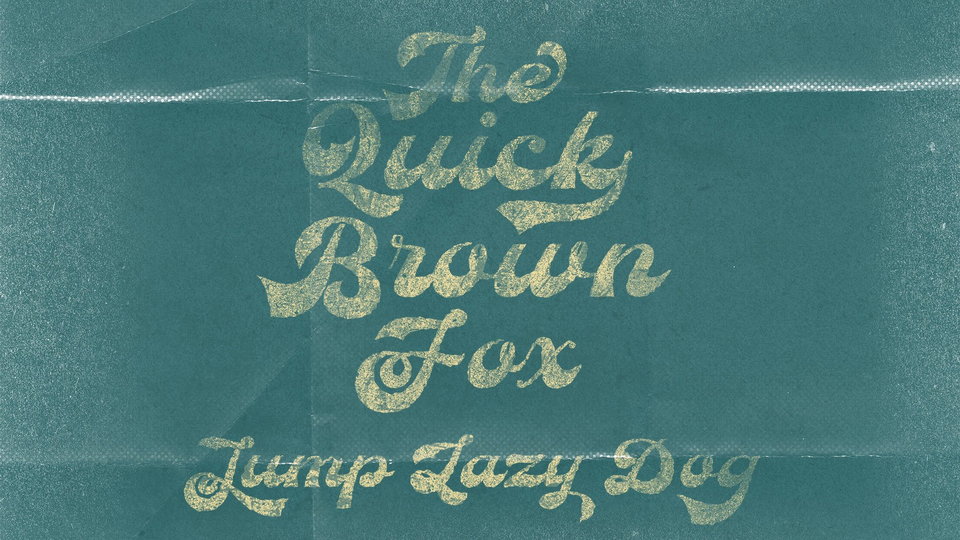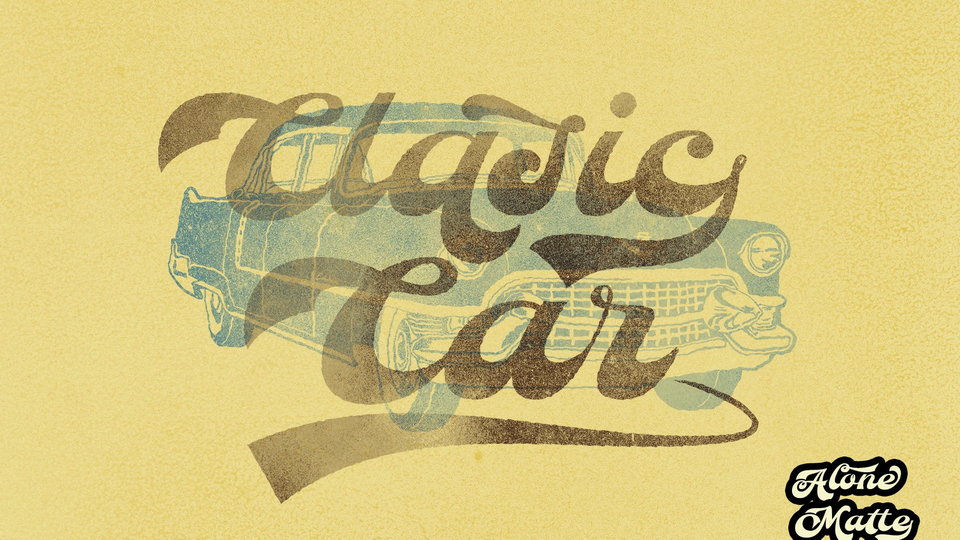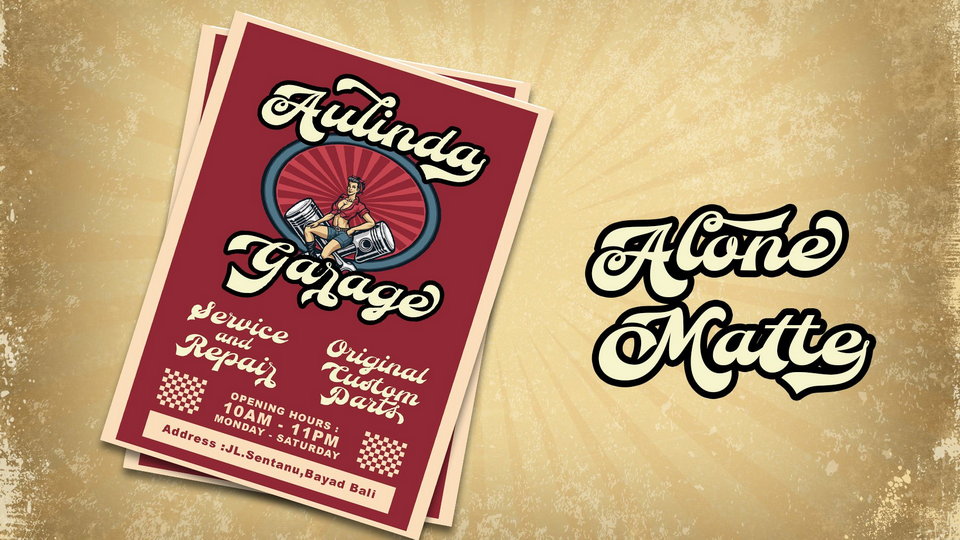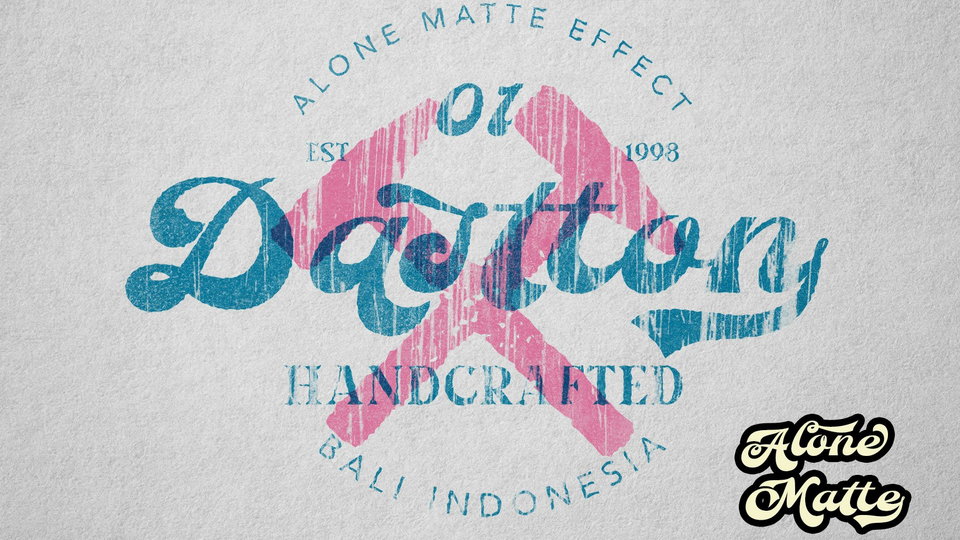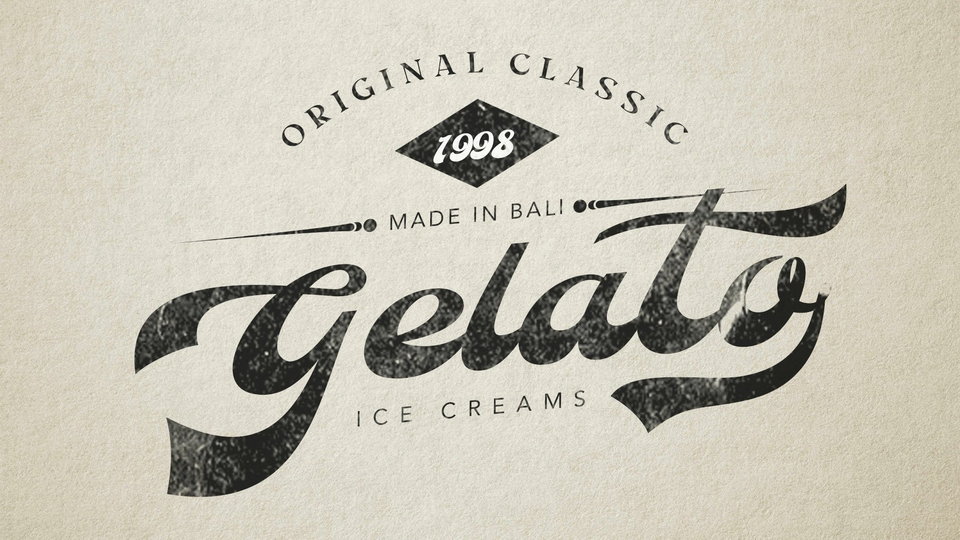
Alone Mate Font
Alone Mate is a bold hand lettered font, inspired by the design styles of the 70s. The style is groovy, classic, not serious but has aesthetic and unique value, besides that the Alone Mate font is very easy to remember and becomes the image of a design.